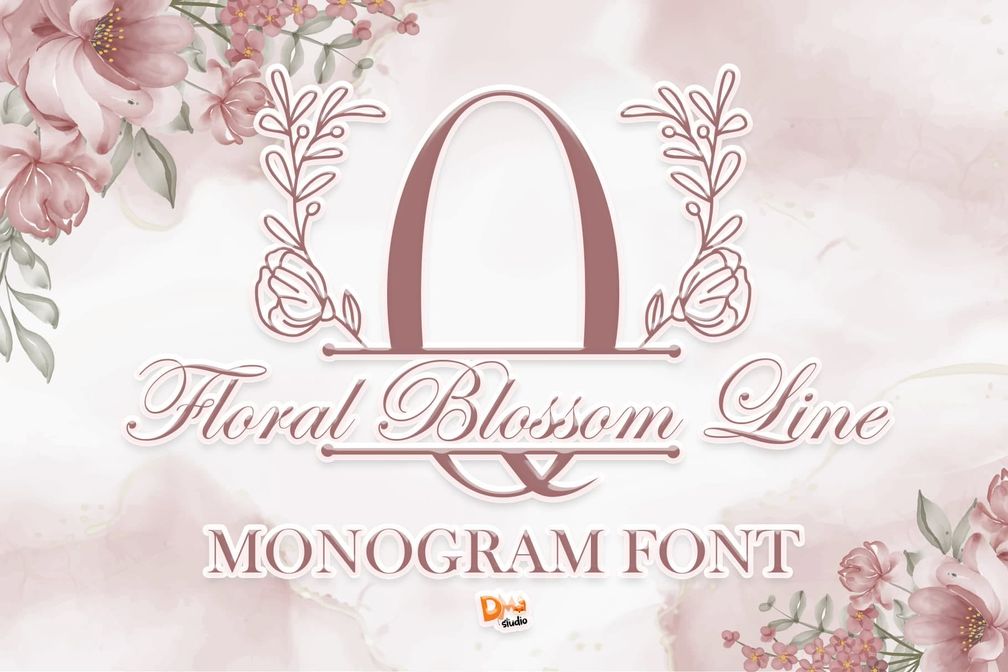
Floral Blossom Line Monogram
Floral Blossom Line Monogram – Elegant & Decorative Monogram Font
Floral Blossom Line Monogram is a sophisticated monogram font featuring delicate floral line art intricately woven into each letter. This refined typeface is perfect for wedding invitations, luxury branding, personalized stationery, boutique packaging, and artistic projects. The graceful floral details add a timeless charm and elegance to any design.
• Intricate Floral Line Art: Each letter is adorned with delicate blossom-inspired line art.
• Timeless & Ornamental Aesthetic: A refined blend of classic monogram style and modern floral elegance.
• Multilingual Support: Includes extended Latin characters for multiple languages.
• Complete Character Set: Includes uppercase, lowercase, numbers, punctuation, and symbols.